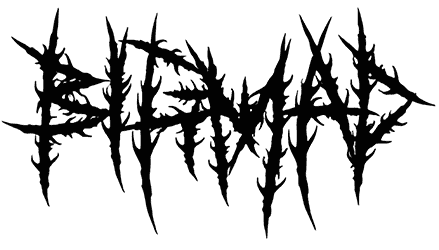
Bigmad Font
Whether it is for a scary design or a metal music concert poster, you can count on this death metal font to make them more engaging. The characters are strong and cool, but lowercase letters and punctuation marks are not…
Whether it is for a scary design or a metal music concert poster, you can count on this death metal font to make them more engaging. The characters are strong and cool, but lowercase letters and punctuation marks are not supported. As a horror font, use the Bigmad font for your next project and mesmerize your followers.